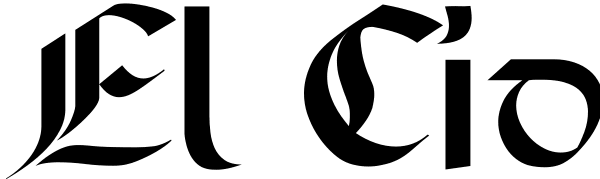
El Cid
El Cid is based on a Spanish round gothic-script hand similar to the northern rotundra blackletter. It is however simpler in form and more legible than its northern relative. A unique feature of this family is the Swashed face which includes...
El Cid Swashed
El Cid Tooled
El Cid